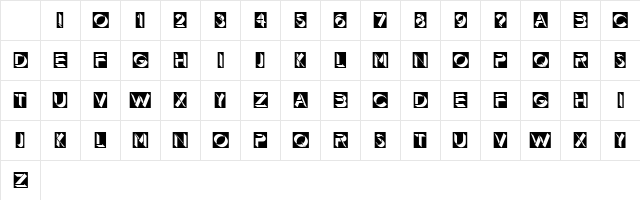
Complete Demode Negative glyph index. Displaying only characters natively supported by Demode Negative font.
Demode is a composed and adaptable typeface that performs quietly and consistently across a wide range of design contexts.
Who designed the Demode Negative font?